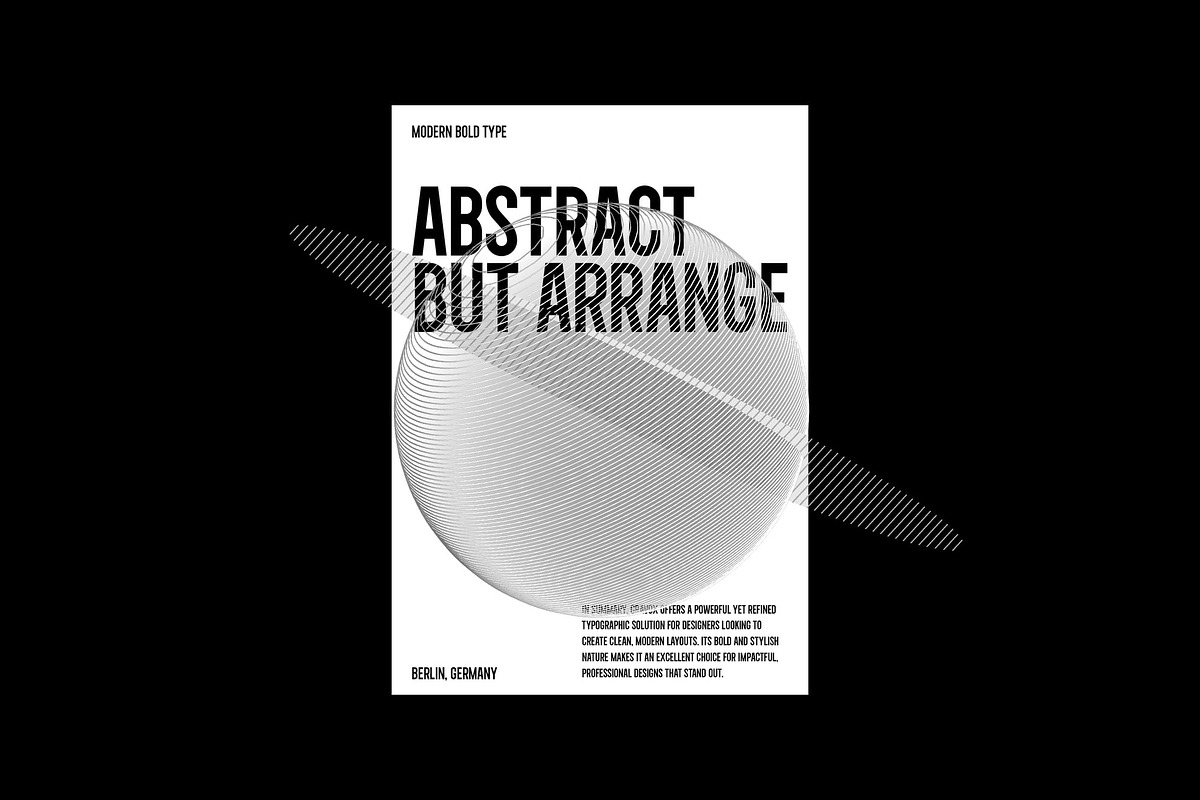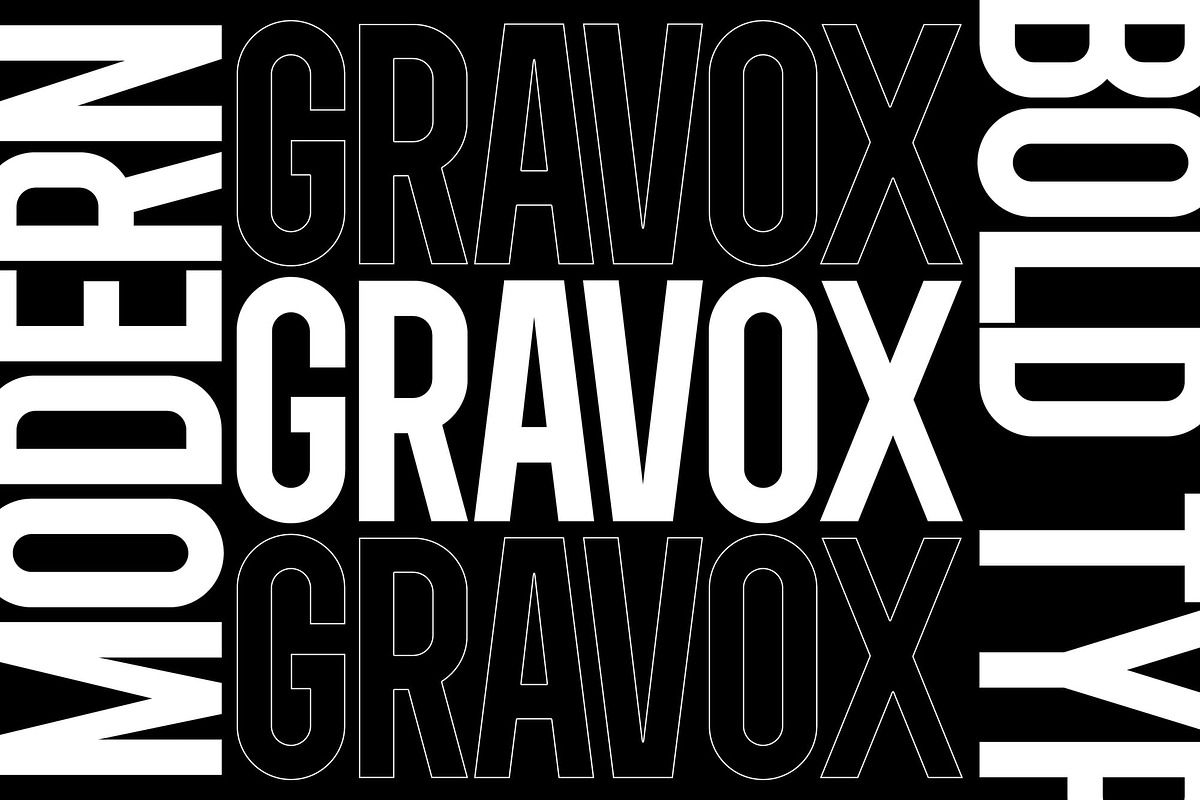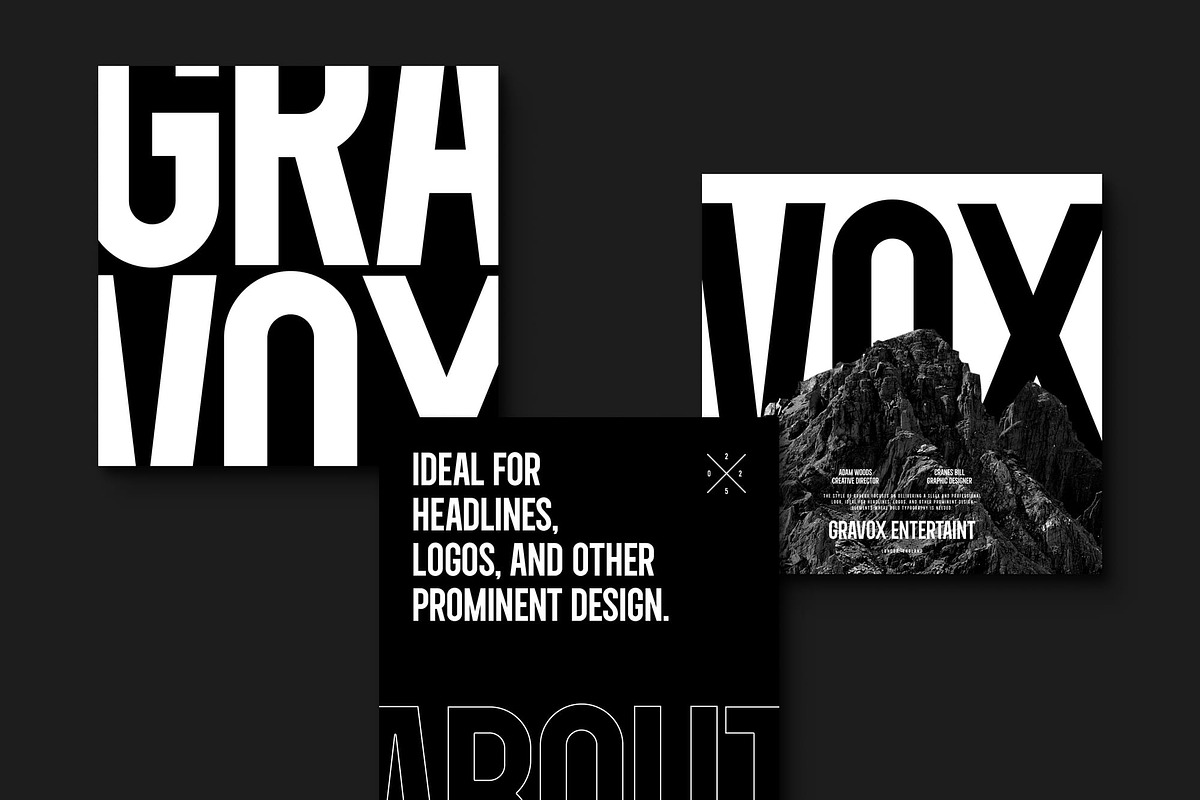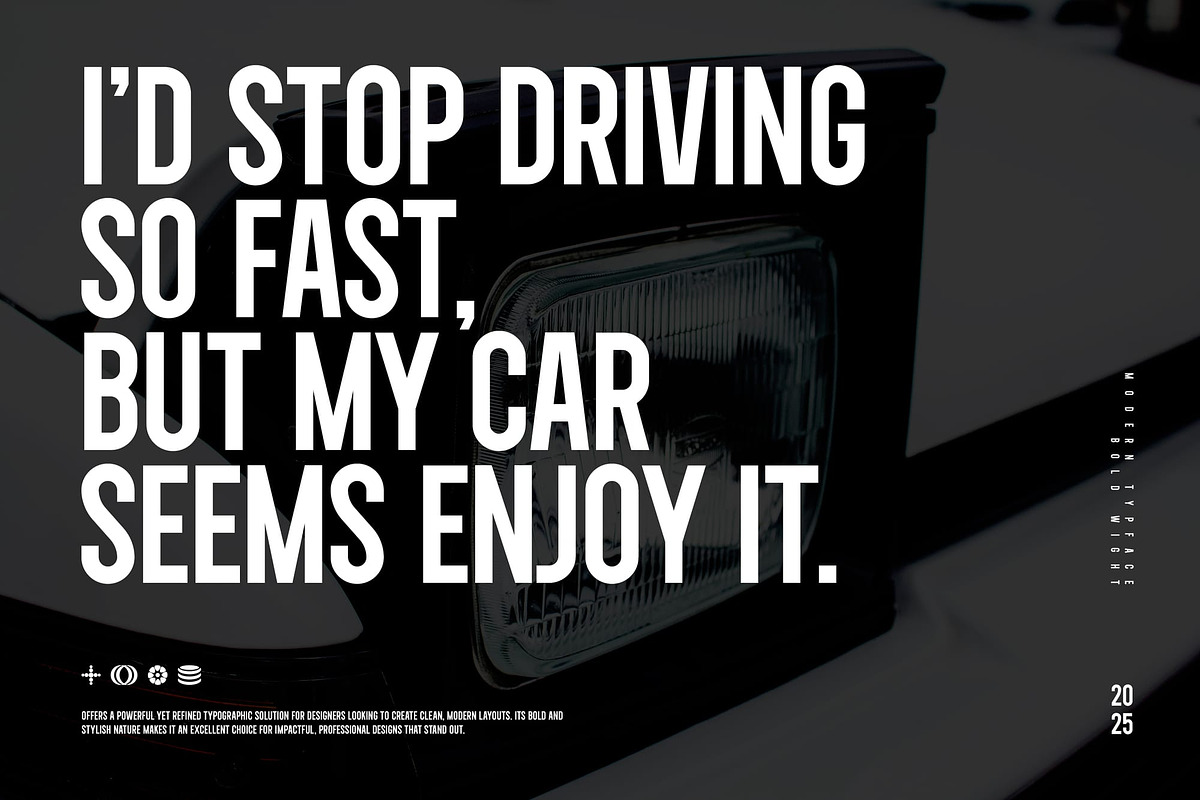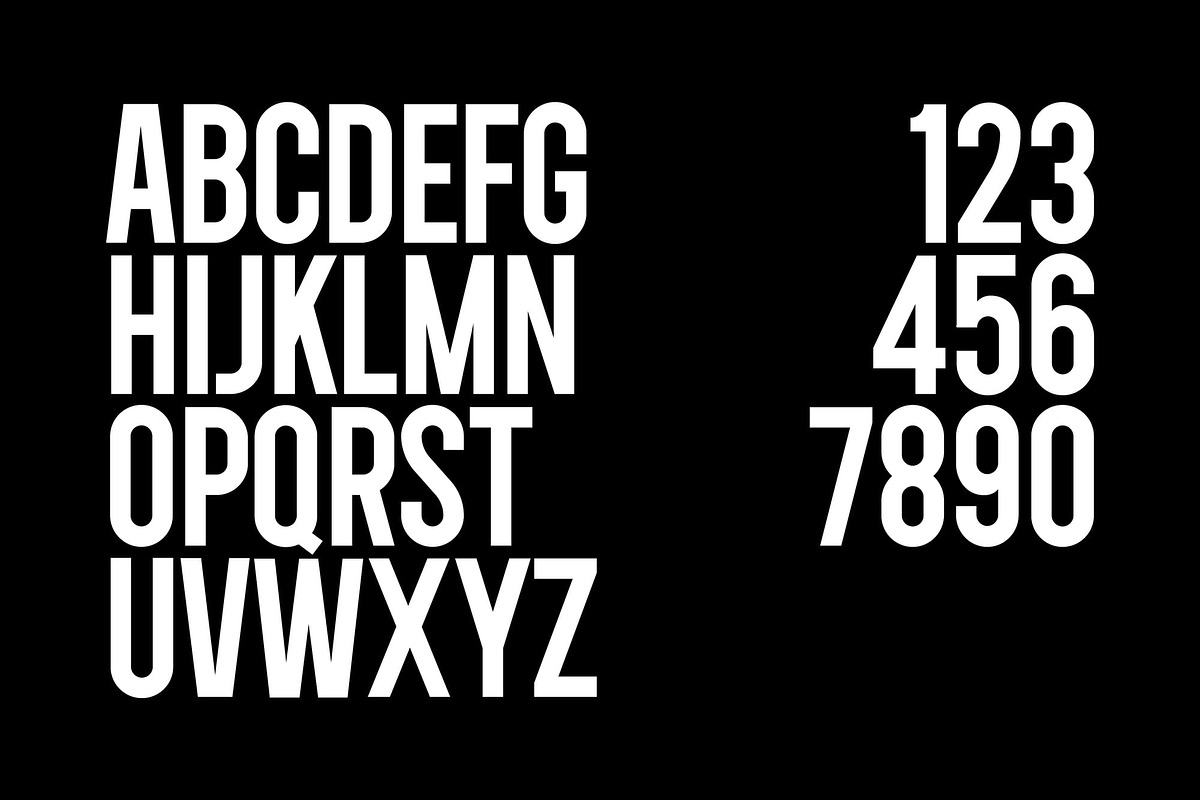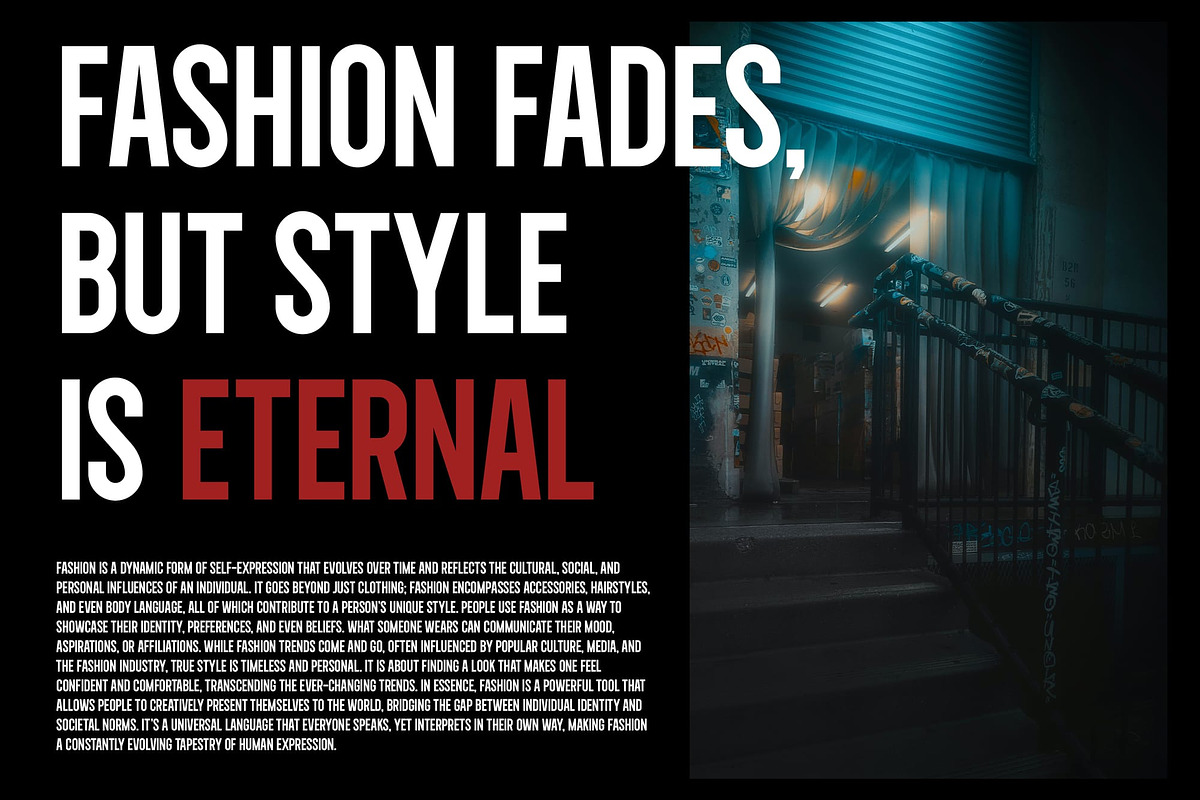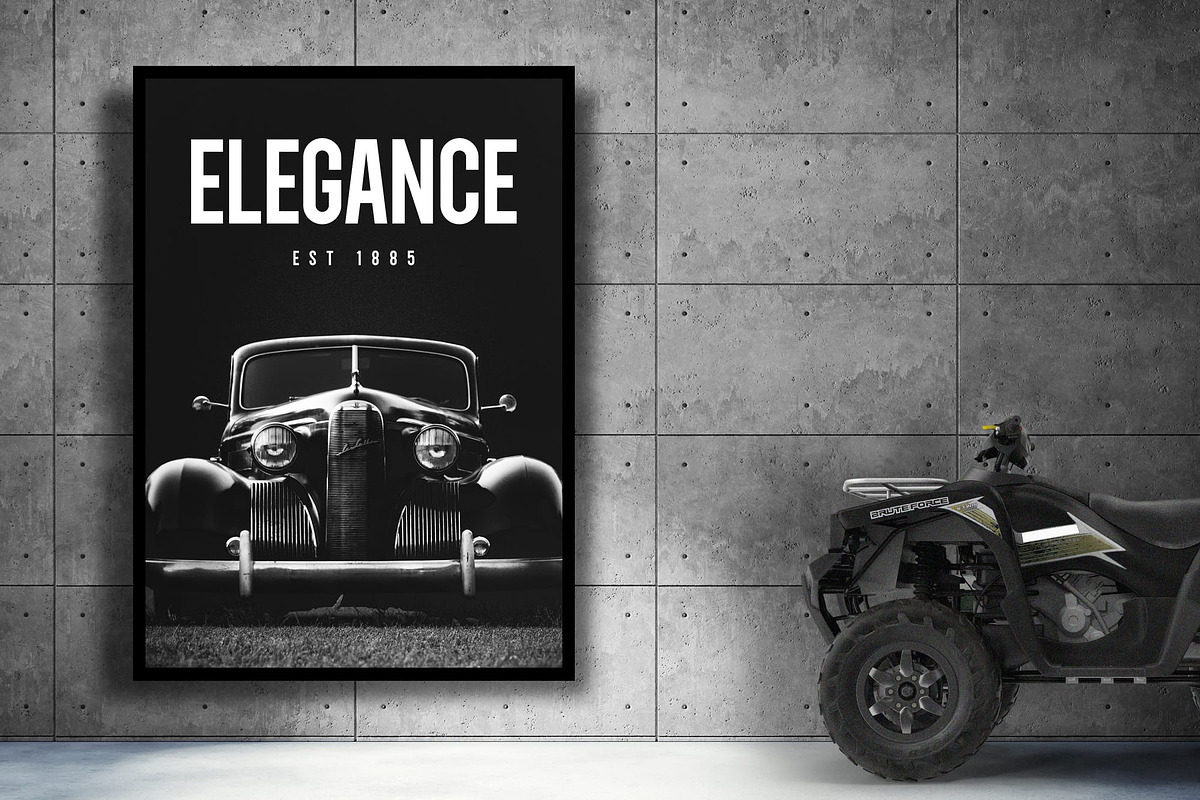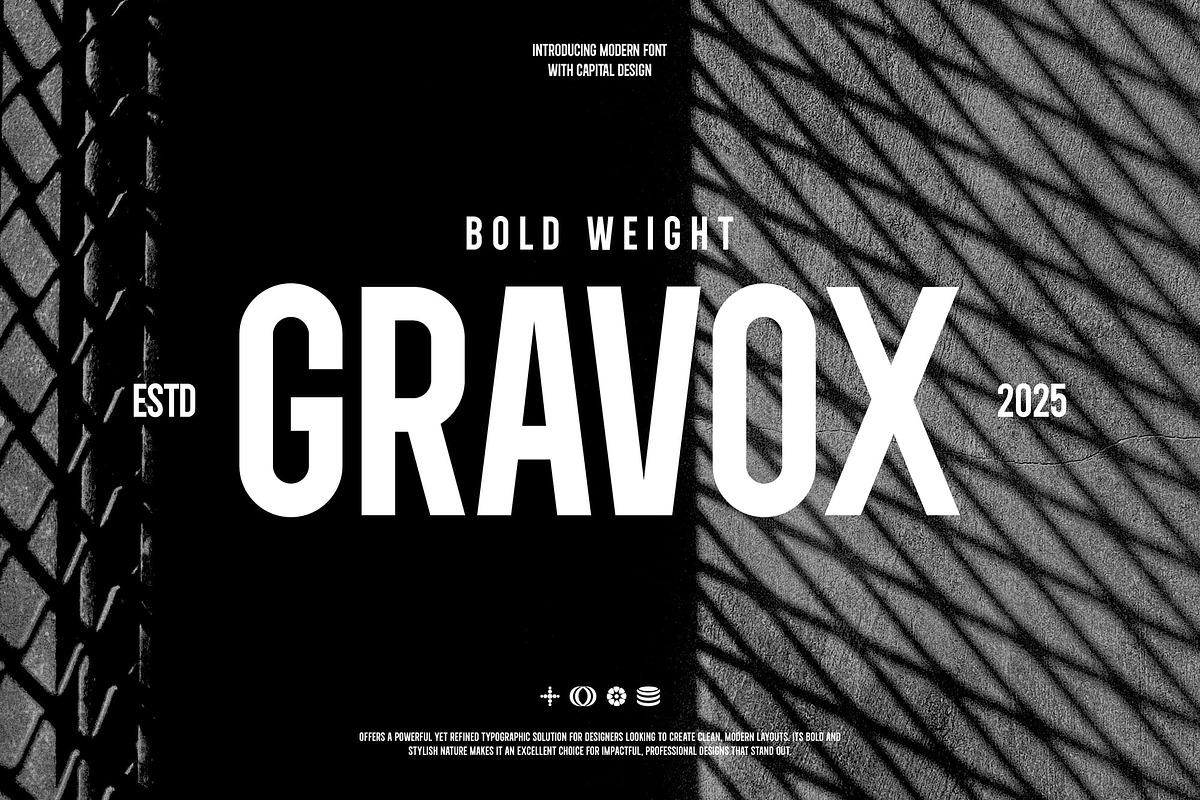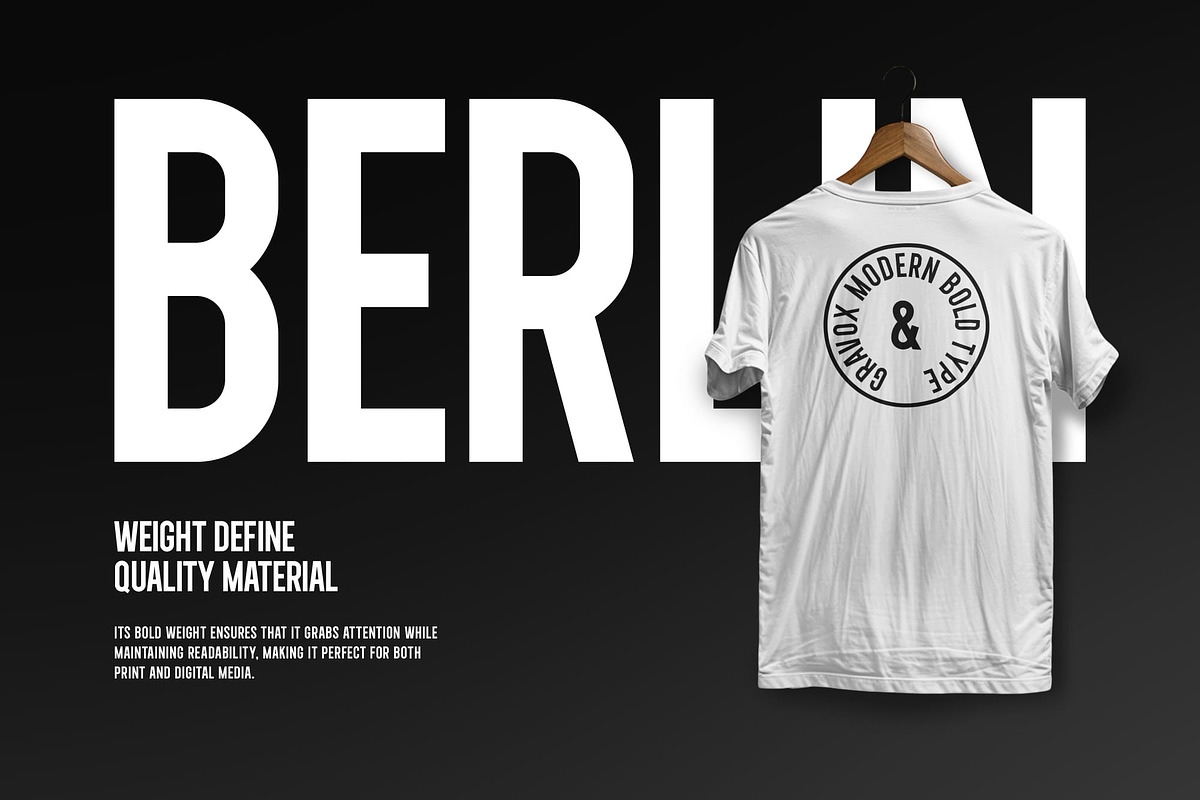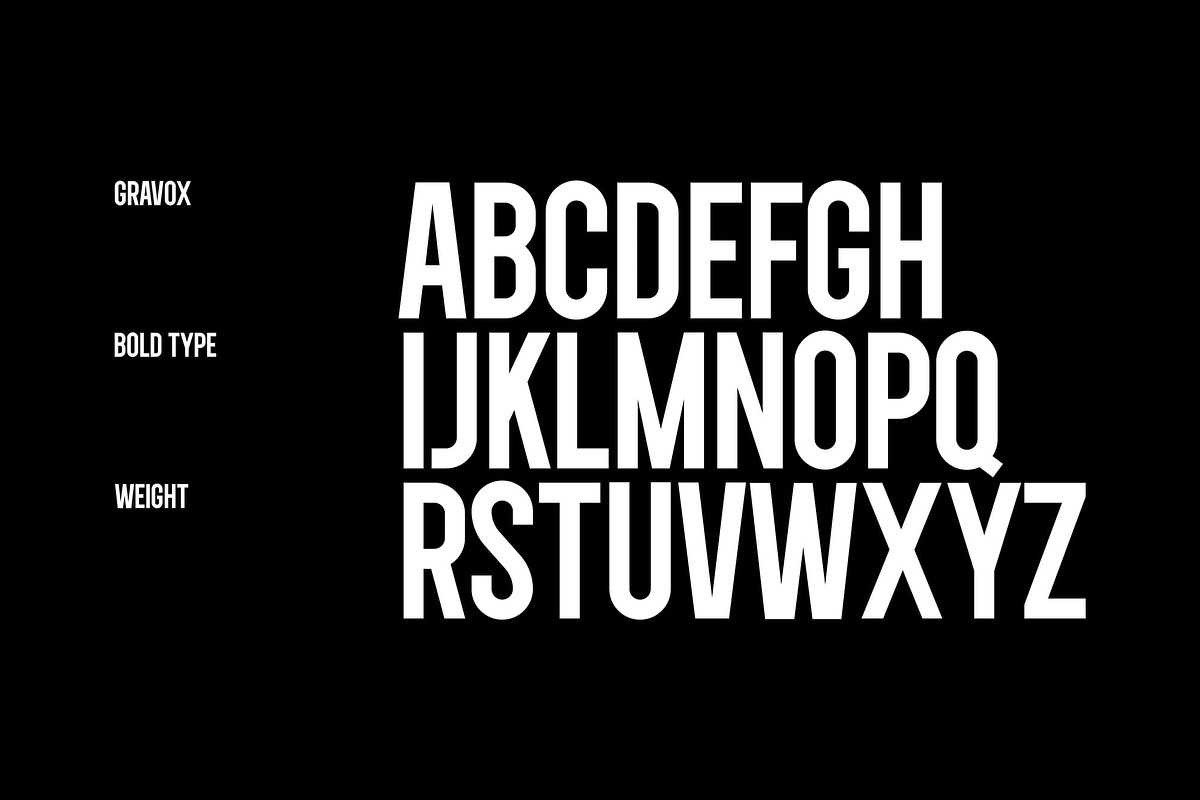
Gravox
Gravox font is a bold, capital font that exudes modernity and confidence. Designed for impactful communication, it enhances readability while making a strong statement. Perfect for branding, advertising, and creative projects, Gravox adds a touch of sophistication and style to any design.